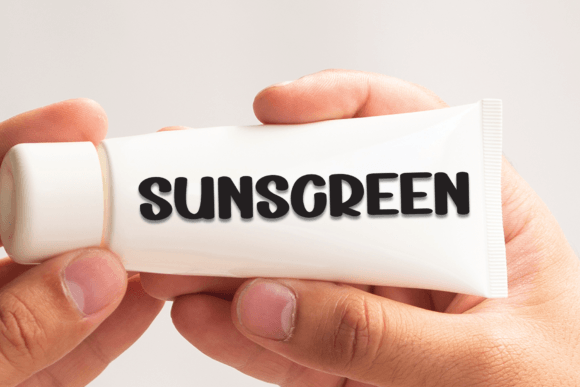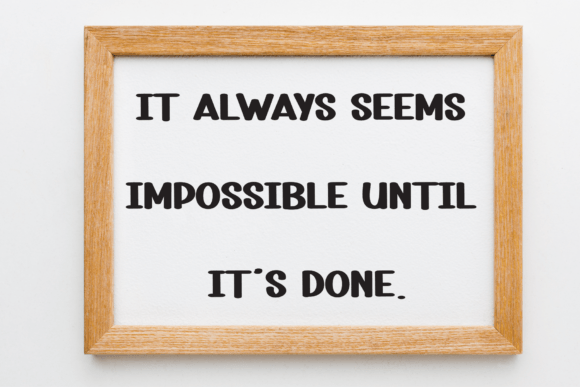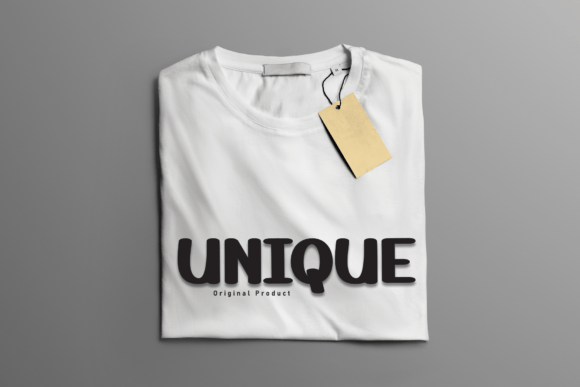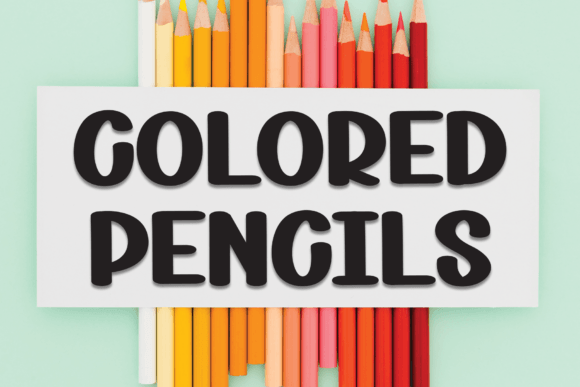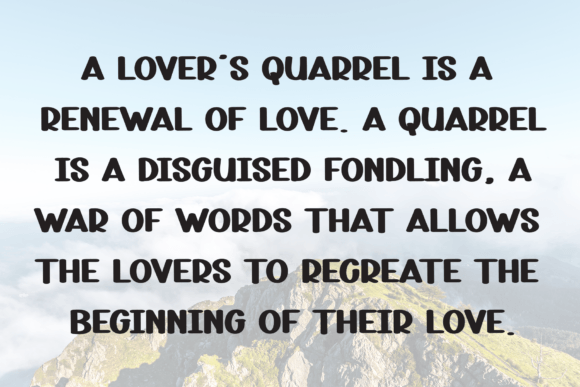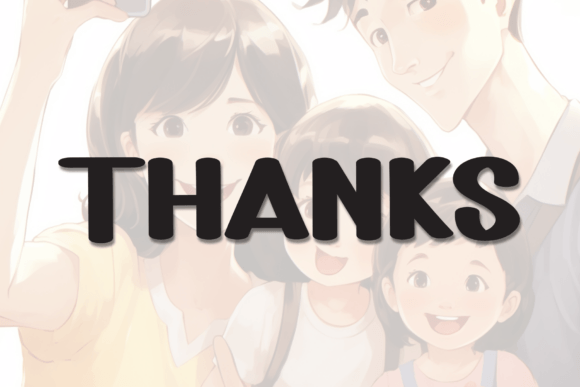
Introducing Comic Family Font: The Ultimate Handwritten Display Font for Whimsical Designs
Are you a designer or crafter looking for a font that can add a touch of joy and playfulness to your projects? Look no further than the Comic Family Font, a charming and sociable handwritten display font that’s perfect for crafting wedding invitations, cards, and other designs that require a dash of whimsy.
A Font that Shines with Charm and Whimsy
The Comic Family Font is a delightful font that’s brimming with charm and personality. Its handwritten style gives it a warm and friendly feel, making it perfect for designs that require a personal touch. Whether you’re creating wedding invitations, birthday cards, or social media graphics, this font is sure to shine and add a touch of magic to your projects.
One of the standout features of the Comic Family Font is its suitability for wedding invitations and cards. The font’s elegant and whimsical style makes it perfect for couples who want to add a touch of personality to their wedding stationery. Imagine creating beautiful wedding invitations, save-the-date cards, or thank-you notes that showcase your personal style and set the tone for your special day.
Adding an Element of Joy and Playfulness to Your Designs
The Comic Family Font is more than just a font – it’s a design element that can add an element of joy and playfulness to your projects. Its whimsical style makes it perfect for designs that require a dash of humor or a lighthearted touch. Whether you’re creating social media graphics, blog posts, or marketing materials, this font is sure to bring a smile to your audience’s faces.
Key Features of the Comic Family Font
- Handwritten display font: The Comic Family Font is a beautiful handwritten display font that’s perfect for headlines, titles, and short paragraphs of text.
- Charming and whimsical style: The font’s elegant and whimsical style makes it perfect for designs that require a touch of personality and charm.
- Perfect for wedding invitations and cards: The font’s suitability for wedding invitations and cards makes it a must-have for couples who want to add a touch of personality to their wedding stationery.
- Easy to read and use: The font is easy to read and use, making it perfect for designers and crafters of all skill levels.
Tips for Using the Comic Family Font
Here are a few tips for using the Comic Family Font in your designs:
- Use it for headlines and titles: The font’s bold and whimsical style makes it perfect for headlines and titles.
- Pair it with other fonts: The Comic Family Font pairs well with other fonts, so feel free to experiment with different combinations to find the perfect look for your design.
- Use it for short paragraphs of text: The font is easy to read, making it perfect for short paragraphs of text.
The Comic Family Font is a charming and sociable handwritten display font that’s perfect for designers and crafters who want to add a touch of joy and playfulness to their projects. Its whimsical style makes it perfect for wedding invitations, cards, and other designs that require a dash of personality and charm. With its ease of use and versatility, this font is sure to become a staple in your design toolkit.